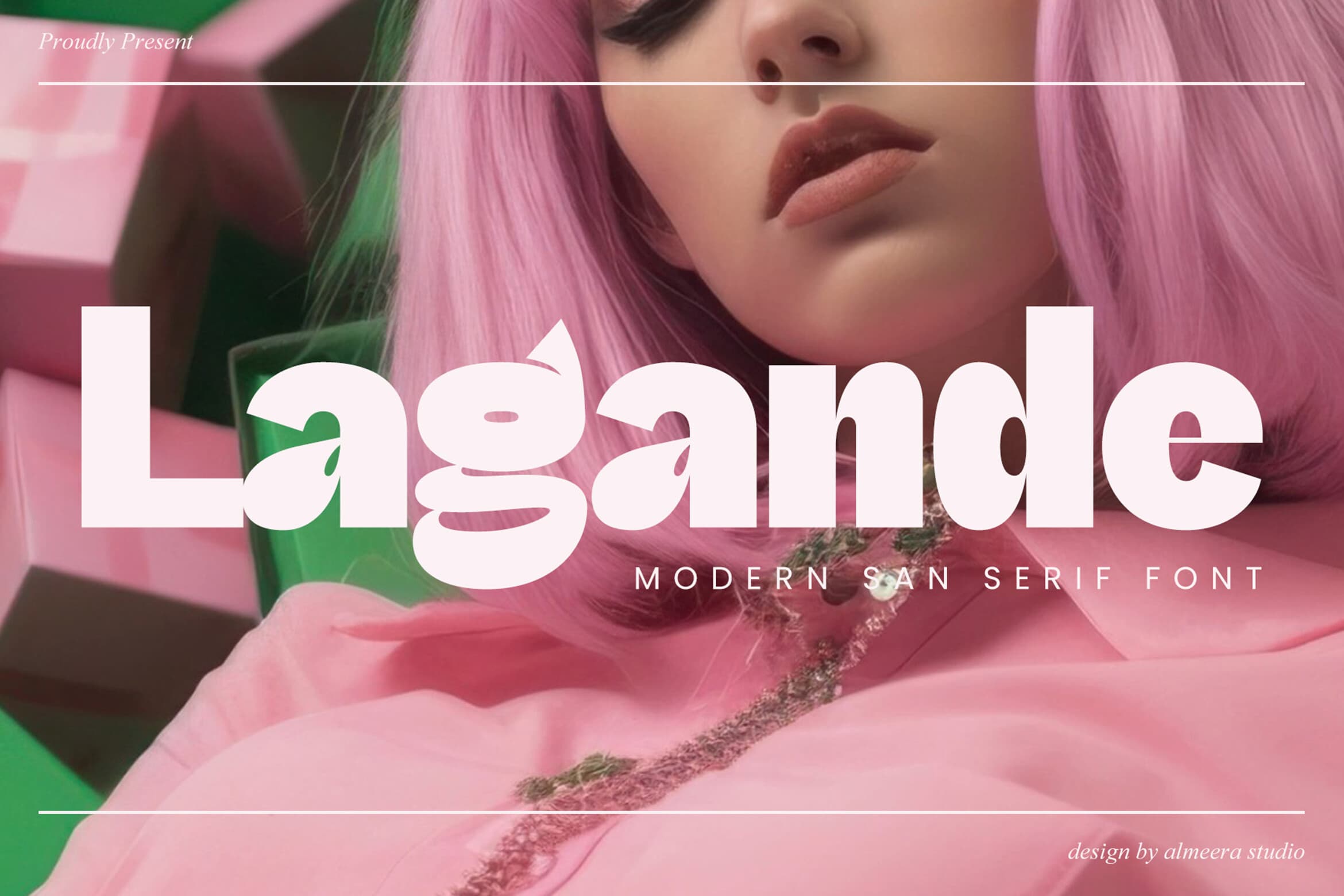
Introducing Lagande: A Modern Sans Serif Font for Every Creative Need In the vibrant world of typography, the choice of font can transform mere words into impactful visual statements. Enter Lagande, a modern sans serif font that beautifully marries s...